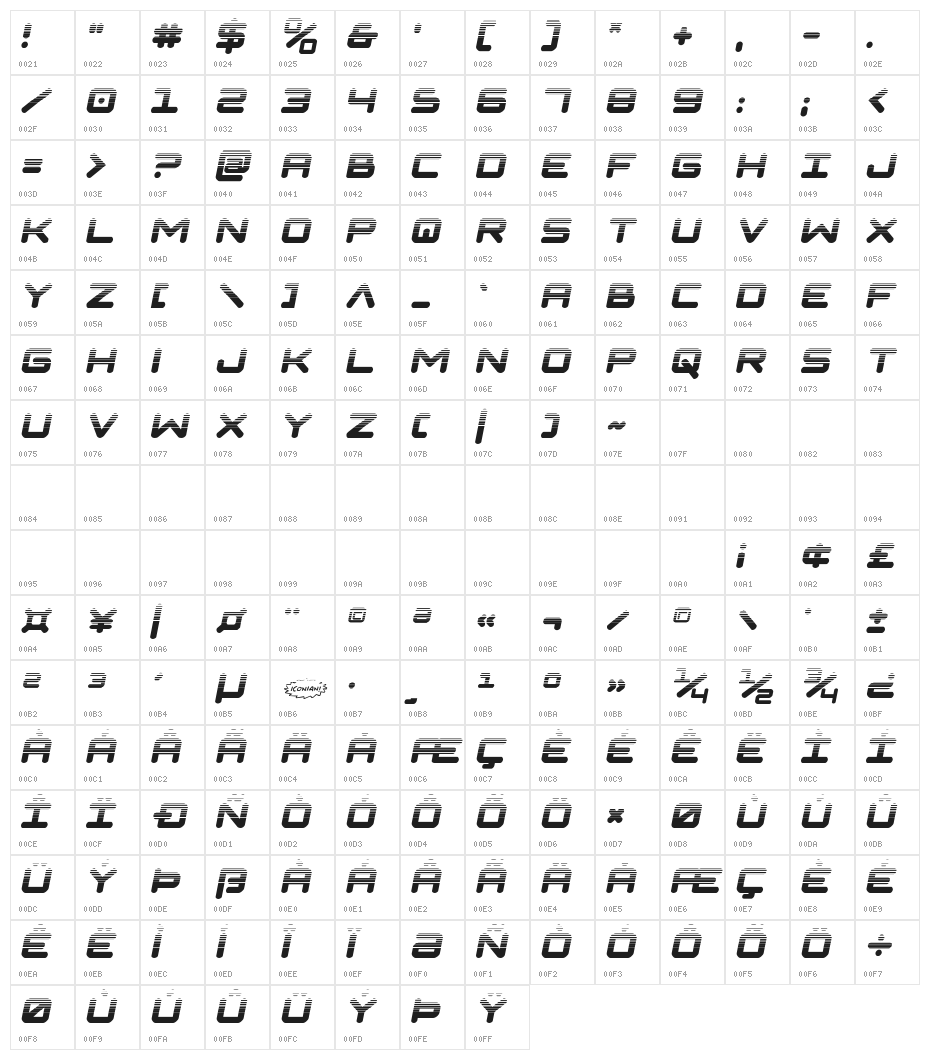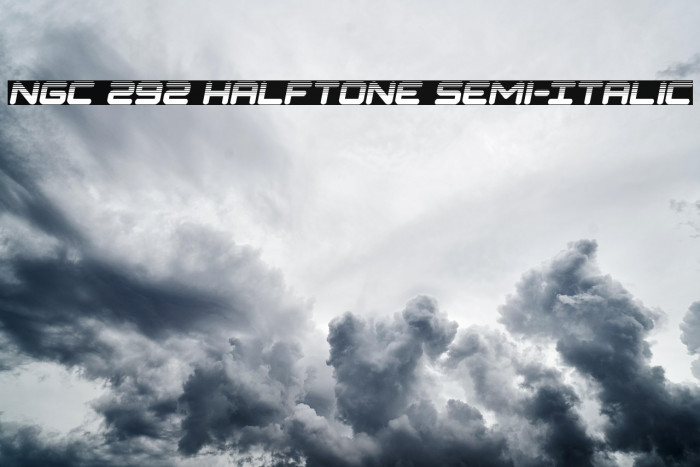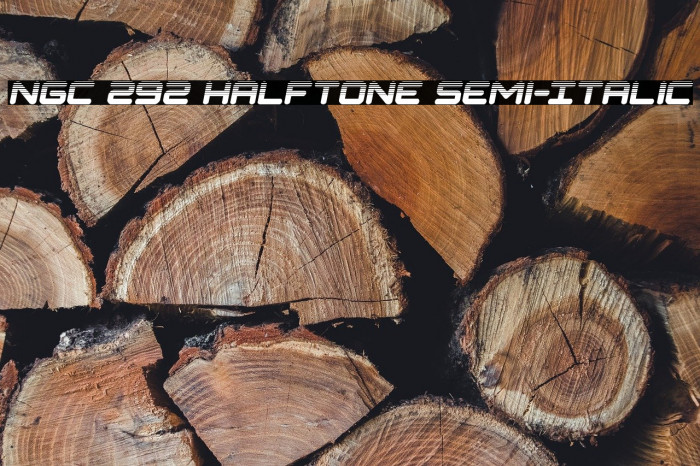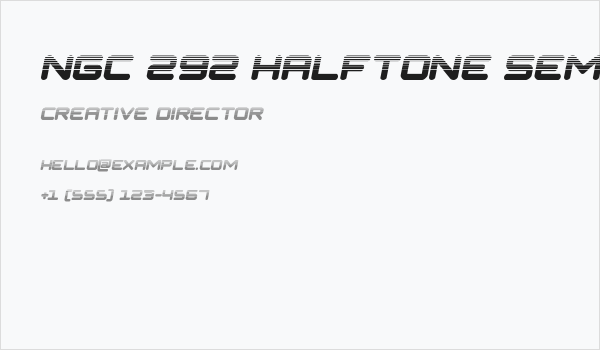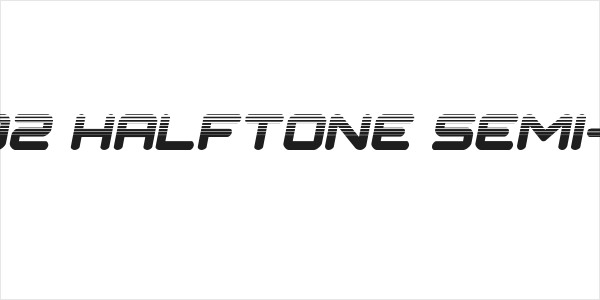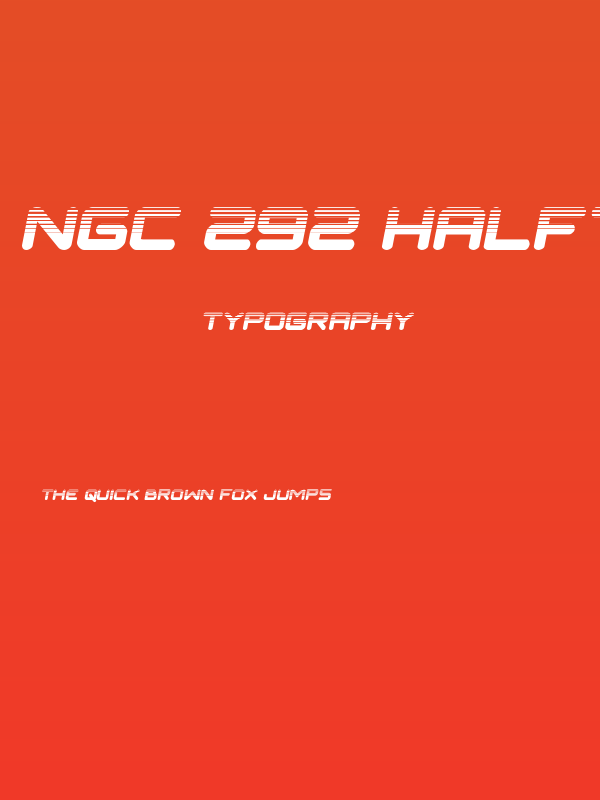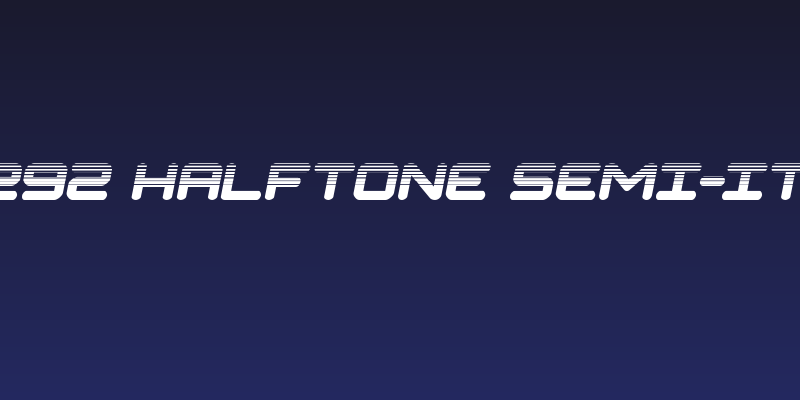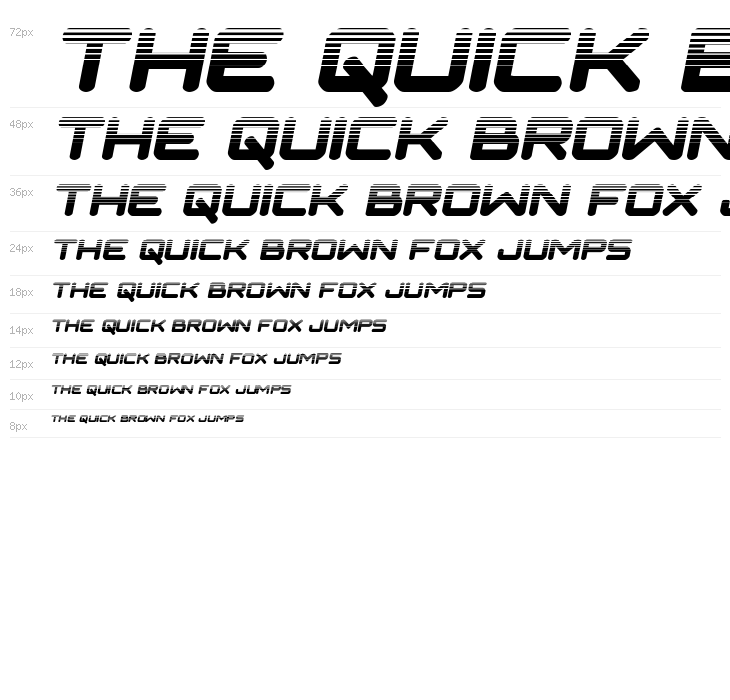
NGC 292 Halftone Semi-Italic Font
NGC 292 Halftone Semi-Italic Description
This font features a futuristic and dynamic design with a semi-italic slant, giving it a sense of motion and speed. The characters are bold and have a unique halftone pattern that adds depth and texture. The uppercase and lowercase letters maintain a consistent style, with rounded edges and a slightly condensed form. The numerals and special characters follow the same design principles, ensuring uniformity across all glyphs. This font is ideal for projects that require a modern and edgy look, such as technology branding, sports team logos, or sci-fi themed designs.
| Use Case | Logos, Headlines |
| Proposed Projects | Ideal for technology branding, sports logos, and sci-fi themed designs. |